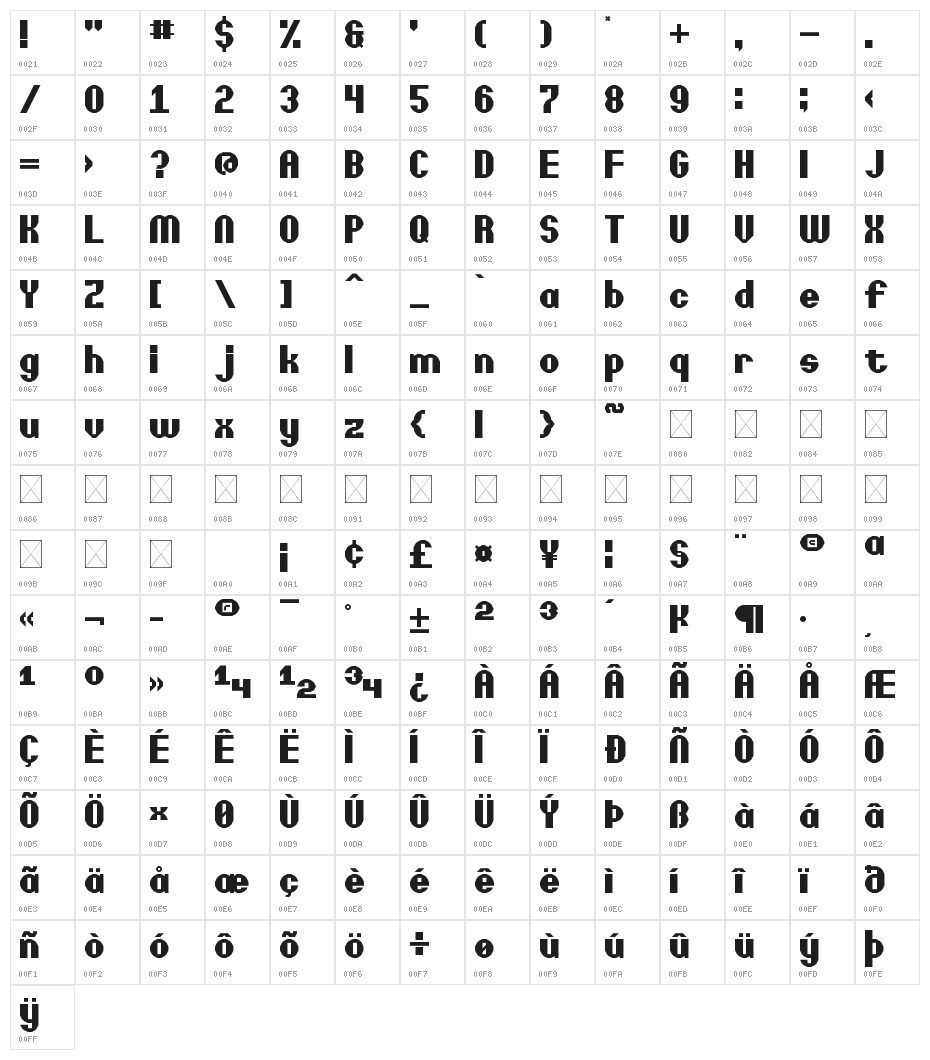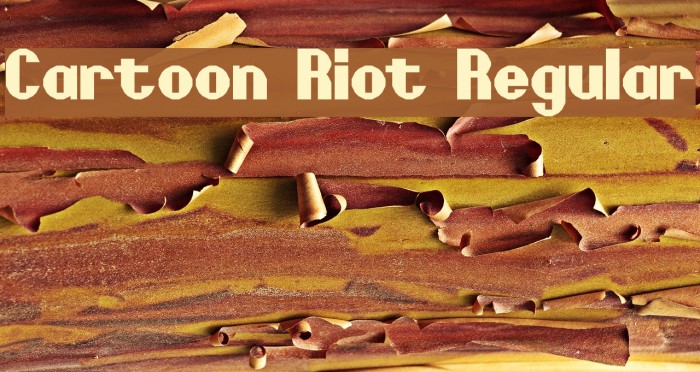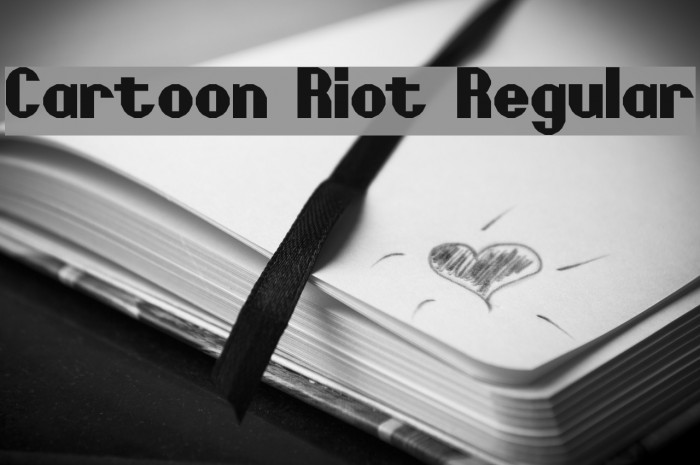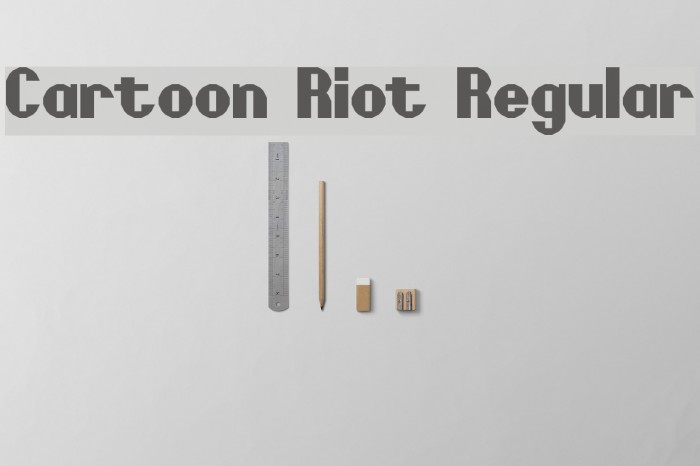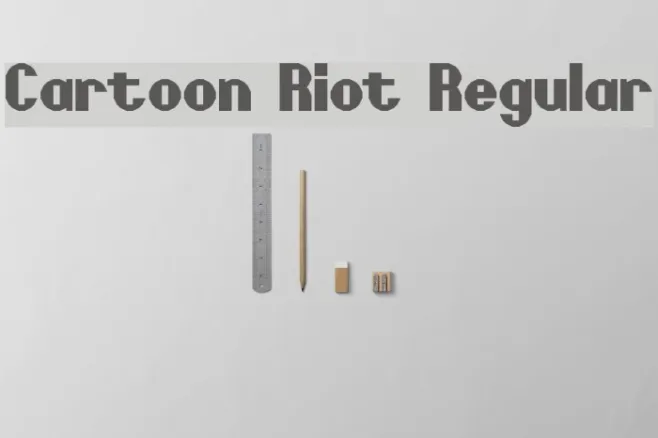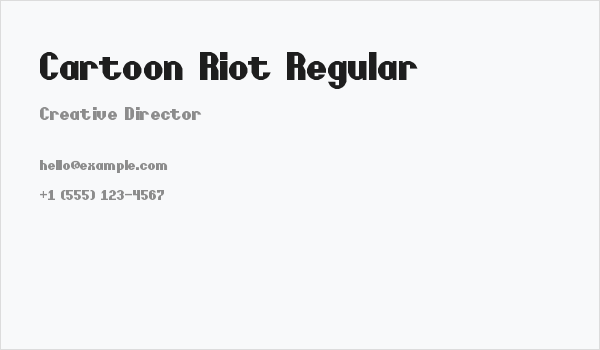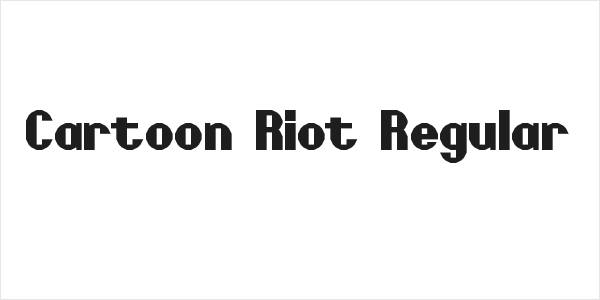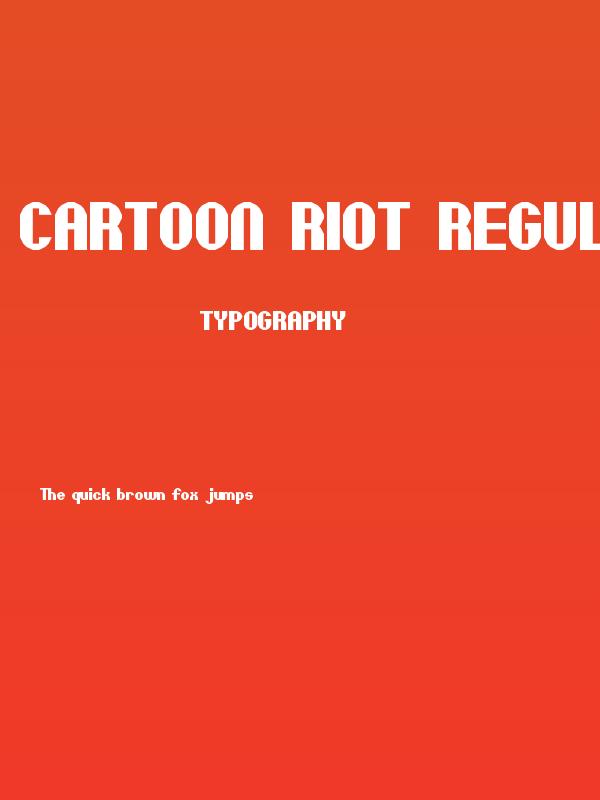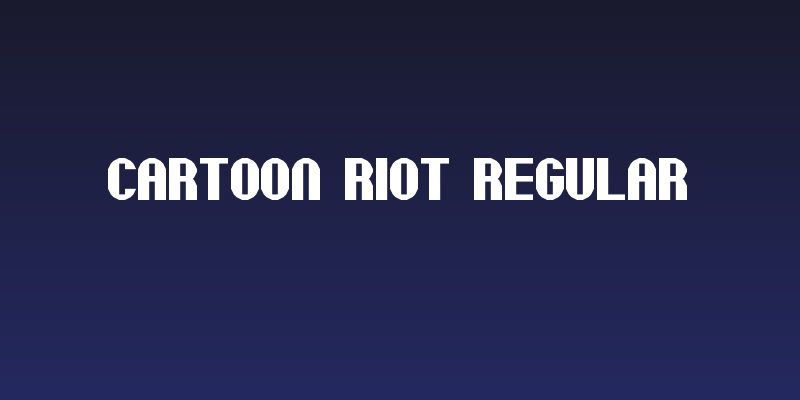
Cartoon Riot Regular Font
Cartoon Riot Regular Description
This font features bold, geometric letterforms with a playful and cartoonish style. The characters are blocky with rounded edges, giving them a friendly and approachable appearance. The uppercase and lowercase letters maintain a consistent width, contributing to a uniform and cohesive look. The numbers and special characters follow the same design principles, ensuring a harmonious overall aesthetic. The font's boldness makes it highly legible and impactful, suitable for drawing attention in various contexts.
| Overall Style | Playful, Cartoonish, Bold |
| Proposed Projects | Ideal for comic books, children's books, playful branding, and eye-catching posters. |